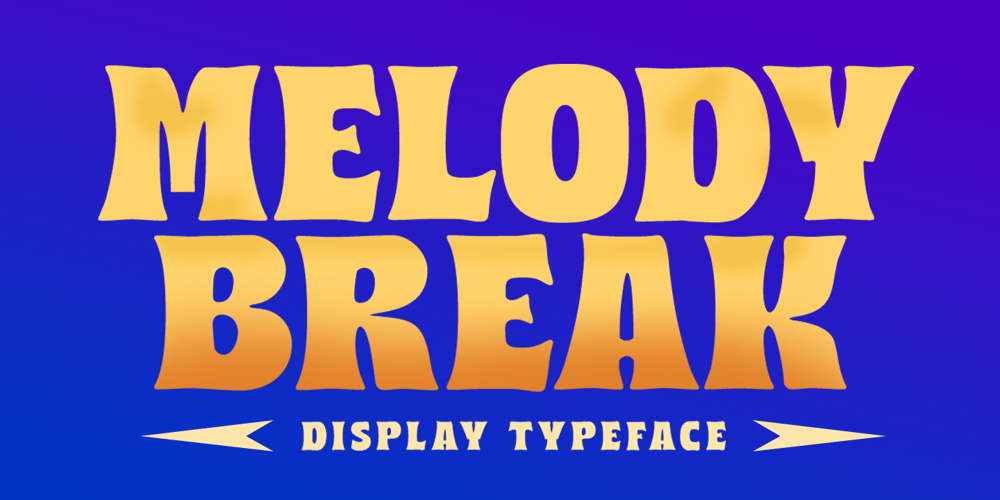
Melody Break Font Family was designed by Hendry Juanda and published by Letterhend. Melody Break contains 1 styles and family package options. Melody Break is a playful bold display with unique letterform. You can play around to fit the form using uppercase and lowercase mode. This font perfectly made to be applied especially in logo, and the other various formal forms such as invitations, labels, logos, magazines, books, greeting / wedding cards, packaging, fashion, make up, stationery, novels, labels or any type of advertising purpose.Features : Uppercase & lowercase Numbers and punctuation Alternates & Ligatures Multilingual PUA encoded We highly recommend using a program that supports OpenType features and Glyphs panels like many of Adobe apps and Corel Draw, so you can see and access all Glyph variations.